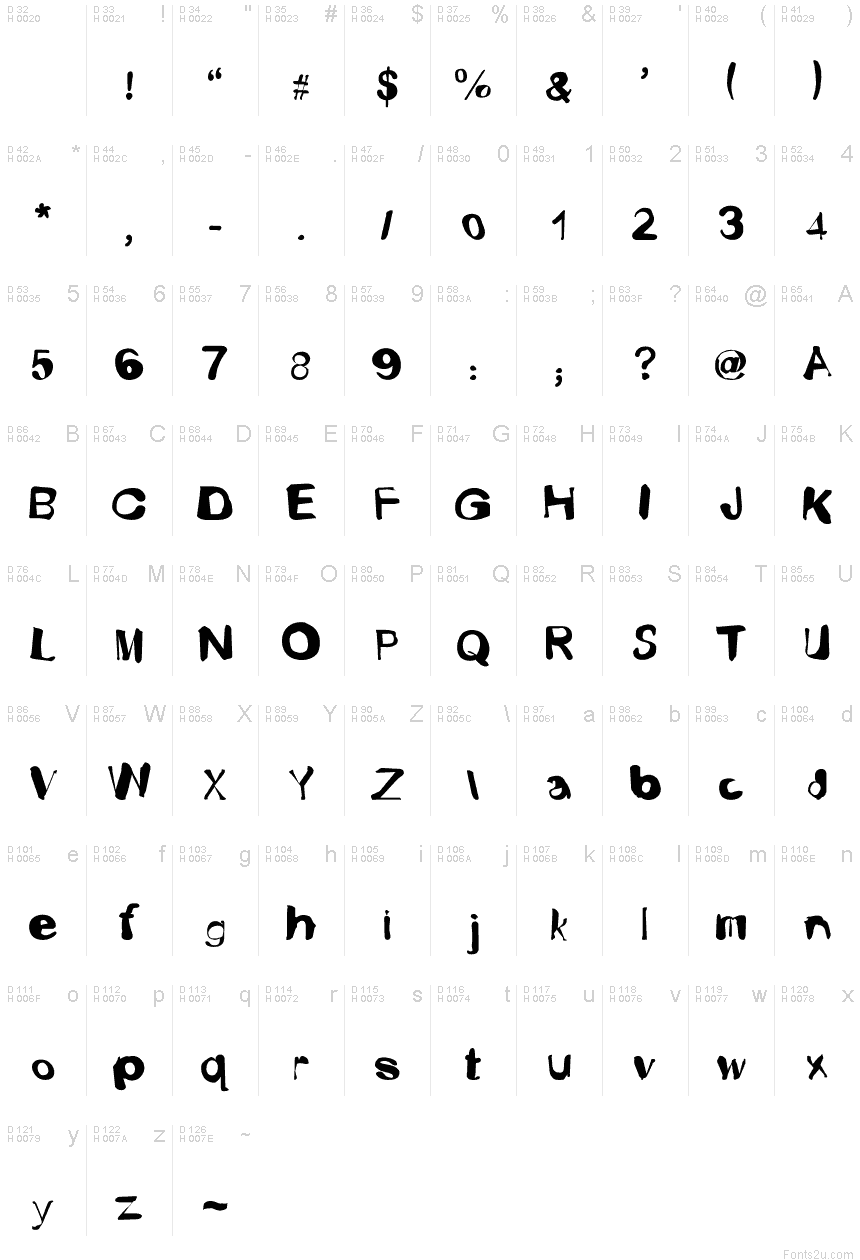
Fusty Luggs
Fusty Luggs font by Uddi Uddi is a free comic display typeface with a gloriously scruffy personality. Each letter feels hand‑painted, with blobby ink pools, wobbly curves, and thick-and-thin strokes that never quite sit still. It has the vibe of marker scribbles on a garage door or a DIY gig flyer-casual, loud, and a little unruly in the best way.
Using Fusty Luggs, your titles instantly grab attention and feel human-made, so it shines on gig posters, zines, kids’ book covers, Halloween party flyers, indie game menus, and playful branding. The spacing is chunky and energetic, which keeps text readable even when blown up huge. For body copy, pair this free font with a clean sans serif and let Fusty Luggs handle the big, shouty bits at the top.